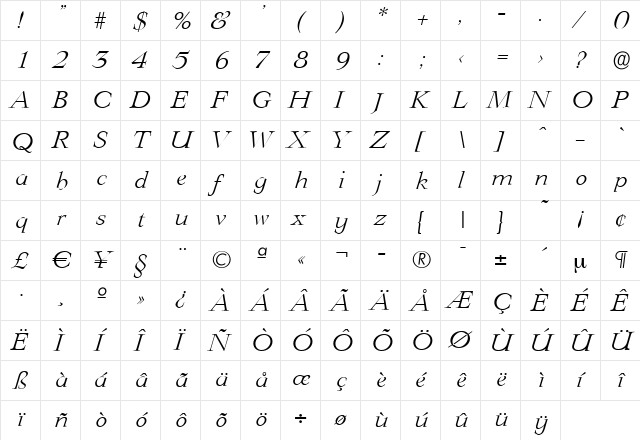
PhillipBecker-Light Italic Font Preview
PhillipBecker-Light Italic
PhillipBecker-Light Italic Font Details
Design Context for PhillipBecker-Light Typeface
PhillipBecker-Light offers clean, dependable letterforms without strong stylistic allegiance, making it a practical choice for designers who need flexibility. Its italic angle brings a sense of urgency and motion to the letterforms. Its slender proportions lend an understated elegance to any composition.
Pro Tip: Use PhillipBecker-Light for emphasis, pull quotes, and subheadings where its slanted energy can add rhythm to the layout.